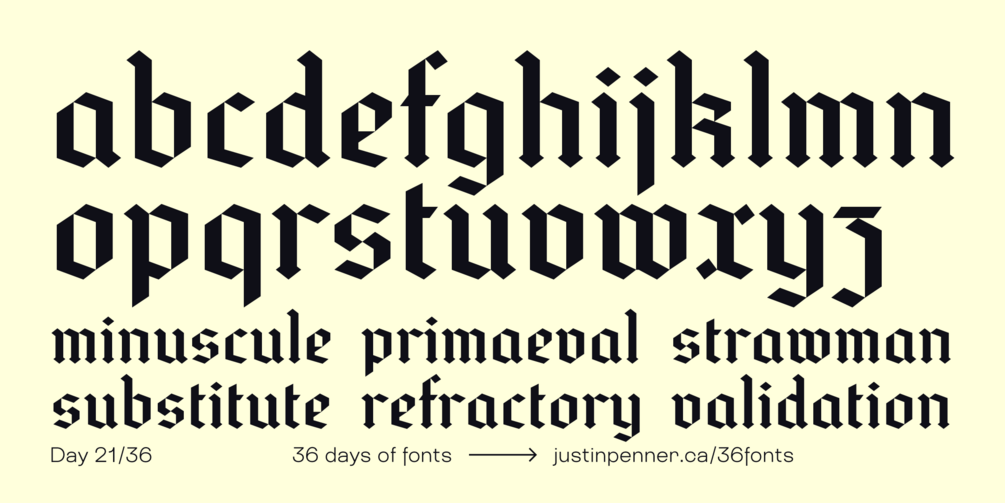
36 Days of Fonts: Day 21
Karbon
I have a strong appreciation for blackletter, but learning to draw a style of type takes appreciation to a much deeper level. I devised a very modular system for this design, which I was worried would make it look too rigid, but in fact it really helps with the rhythm of the letters.